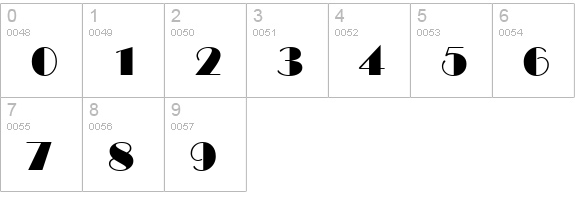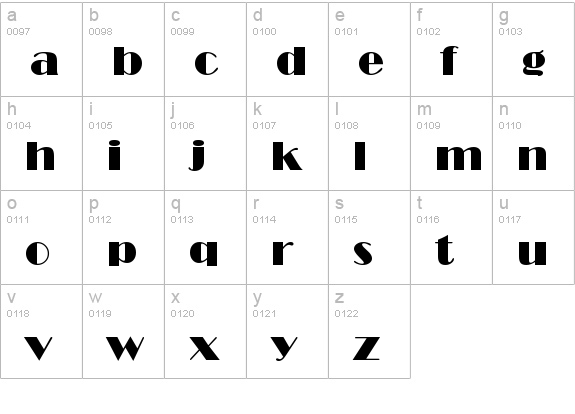
Marquee Font Details
The Marquee font is a stunning display typeface that adds a touch of elegance and sophistication to any design project. With its captivating curves and bold lines, this font is perfect for creating eye-catching headlines, logos, and signage. Its unique style will instantly grab attention and make your text stand out from the crowd. What sets the Marquee font apart is not just its striking design, but also its accessibility. It is freely available to download at FontsMarket.com, making it a valuable asset for designers, creatives, and anyone looking to add a touch of class to their projects without breaking the bank. Whether you're working on a website, a print advertisement, or a branding project, the Marquee font is versatile enough to adapt to any medium. Its clean and legible characters ensure that your message is conveyed clearly, while its artistic flair adds a touch of personality and sophistication. This font is designed with attention to detail, ensuring smooth lines and seamless curves that create a visually pleasing aesthetic. Its timeless elegance makes it suitable for a wide range of applications, from vintage-inspired designs to modern, minimalist layouts. The Marquee font is truly a gem in the world of typography, and its availability as a free download at FontsMarket.com only adds to its appeal. Download it today and unlock the power of this stunning font to elevate your designs to new heights.